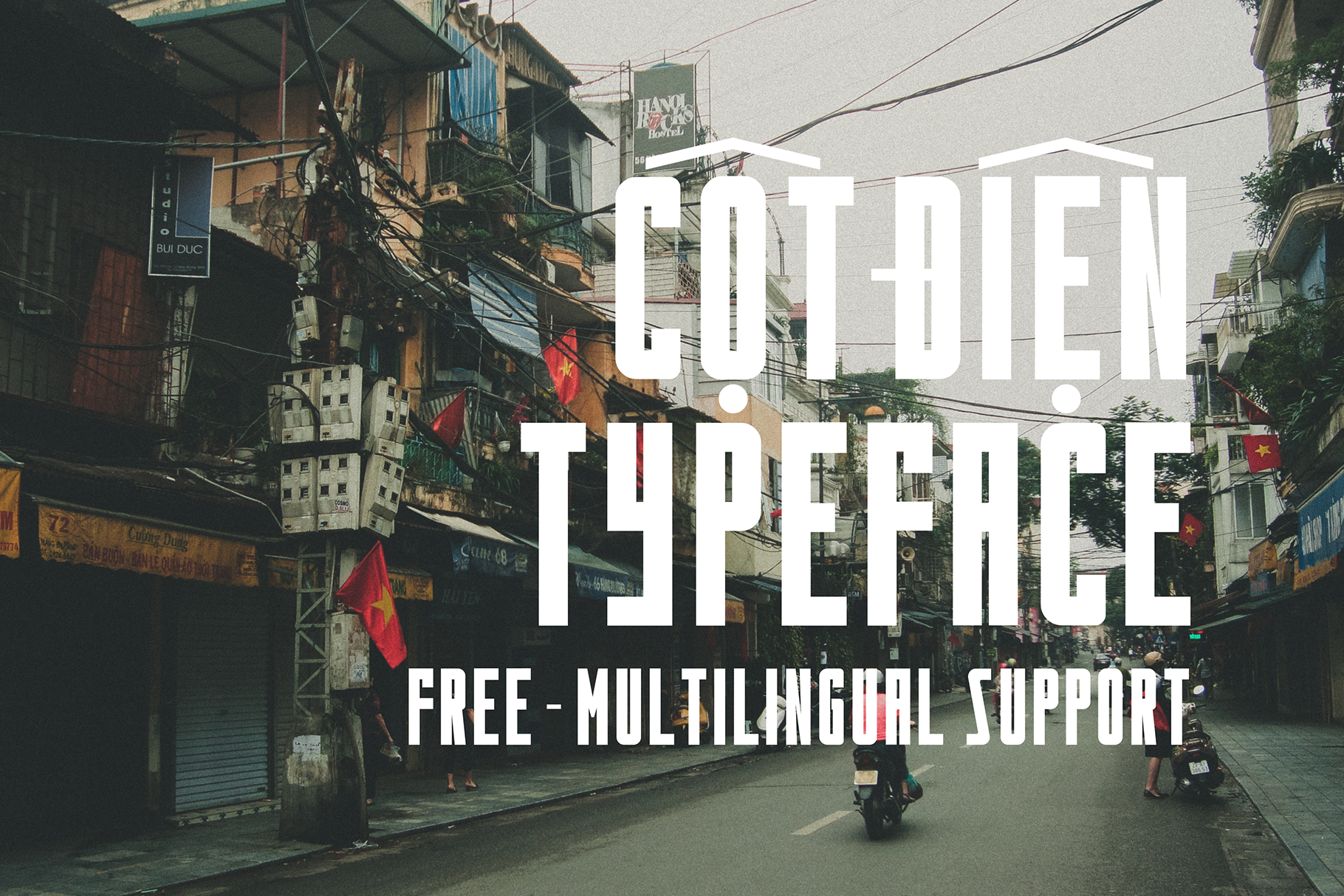
Cotdien Typeface (Vietnamese: Cột điện, English: Power pole) is a typeface created by Manh Nguyen, a Vietnam-based type designer who is in love with hand-drawn classic panels and propaganda banners in Vietnam from the very last century and try to bring the sense of a drawn one into his work. In the other hand, the typeface is also affected by the presence of "power poles" which is called humorously "non-leaves energy-producing trees" growing unnecessarily but bringing a tremendous amount of cables on themselves around street corners, therefore alongside with timeflow, the power poles become more and more iconic and cannot be ignored in several Vietnam poets' and artist' works in nearly 100 years til' now.
Cotdien Typeface is a FREE condensed geometric retro sans serif with curved corners and thick stroke; hence, it create a significant presence on titles of magazines' articles, branding logos, etc,.. with a very vintage beauty and an oppositely aesthetic modern impression created by Manh's own experience on street photography, focused on the electric poles.
Take your time and enjoy this vintage, Vietnam-inspiring font.